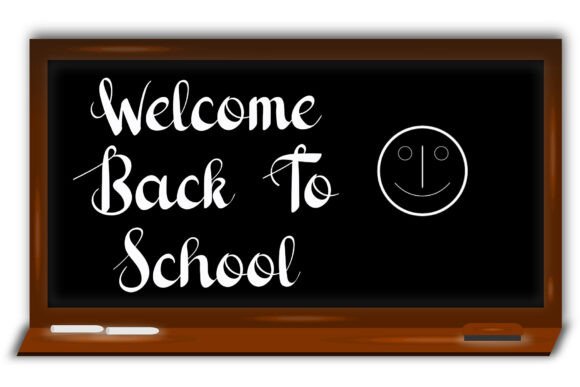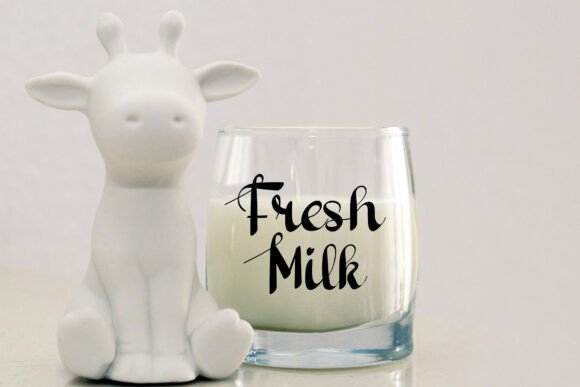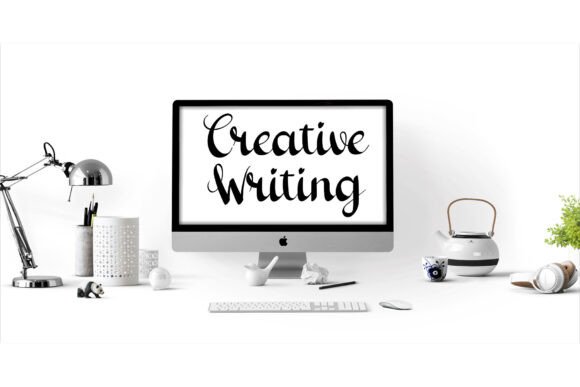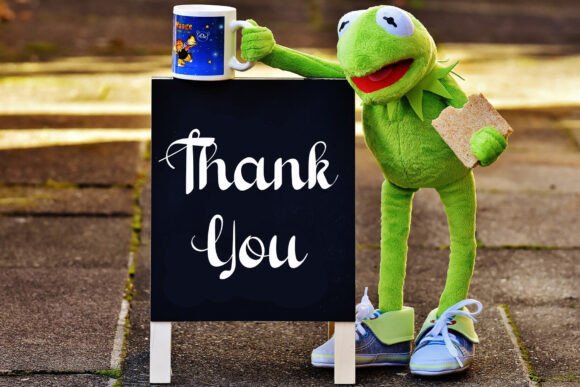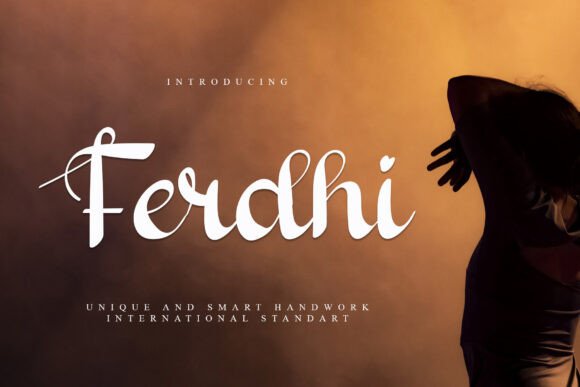
Ferdhi Font: Elevate Your Designs with Elegance and Sophistication
In the world of typography, fonts play a crucial role in conveying the tone and personality of a design. For designers and crafters seeking to add a touch of elegance and sophistication to their creations, Ferdhi Font is an exceptional choice. This unique and elegant font is perfect for a variety of design projects, including wedding invitations, greeting cards, billboards, logos, business cards, and more.
The Distinctive Features of Ferdhi Font
Ferdhi Font boasts a distinctive, hand-crafted aesthetic that sets it apart from other fonts. Its varied baseline, created with a natural, hand-made touch, gives it a unique and organic feel. This feature allows designers to create spectacular creations that exude a sense of realism and authenticity. Whether you’re looking to add a personal touch to your designs or create a lasting impression, Ferdhi Font is an excellent choice.
Versatility and Creative Freedom
One of the standout features of Ferdhi Font is its versatility. Its elegant and refined design makes it suitable for a wide range of applications, from romantic wedding invitations to bold billboards. The font’s natural, hand-crafted look also makes it perfect for designs that require a personal touch, such as greeting cards, business cards, and logos.
Ferdhi Font is PUA (Private Use Area) encoded, which means that designers can access all glyphs and swashes with ease. This feature provides unparalleled creative freedom, allowing designers to experiment with different styles and combinations to achieve their desired look. With Ferdhi Font, you can effortlessly add a touch of elegance and sophistication to your designs, making them truly unforgettable.
Why Choose Ferdhi Font?
So, why should designers and crafters choose Ferdhi Font for their projects? Here are just a few compelling reasons:
- Unique and Elegant Design: Ferdhi Font features a distinctive, hand-crafted aesthetic that adds a touch of elegance and sophistication to any design.
- Versatility: Suitable for a wide range of applications, from wedding invitations to billboards, logos, and business cards.
- PUA Encoding: Effortlessly access all glyphs and swashes to achieve your desired design.
- Natural, Hand-Made Touch: Creates spectacular creations that exude a sense of realism and authenticity.
Tips for Using Ferdhi Font
To get the most out of Ferdhi Font, here are a few tips to keep in mind:
- Experiment with Different Sizes: Ferdhi Font looks great in a variety of sizes, from small and delicate to large and bold.
- Play with Glyphs and Swashes: Take advantage of PUA encoding to add unique touches to your designs.
- Pair with Complementary Fonts: Combine Ferdhi Font with other fonts to create visually appealing and harmonious designs.
In conclusion, Ferdhi Font is an exceptional choice for designers and crafters seeking to add a touch of elegance and sophistication to their creations. Its unique and elegant design, versatility, and PUA encoding make it perfect for a wide range of applications. With Ferdhi Font, you can create spectacular creations that exude a sense of realism and authenticity, making your designs truly unforgettable.